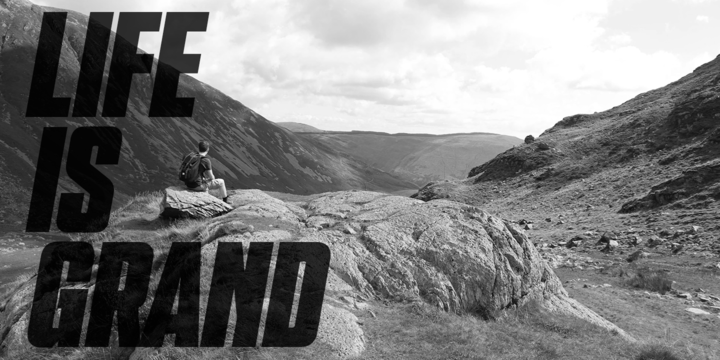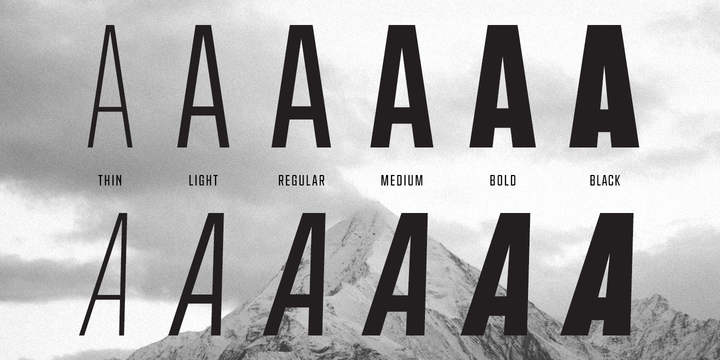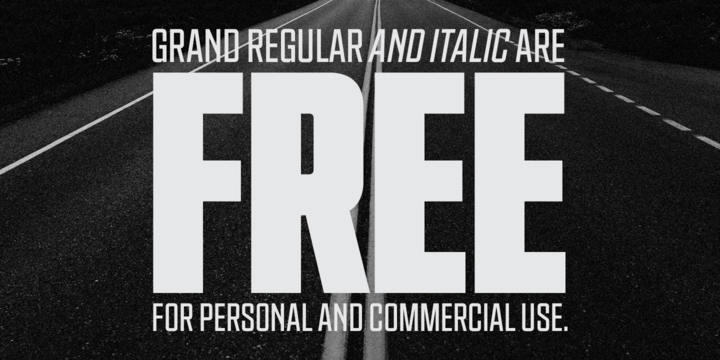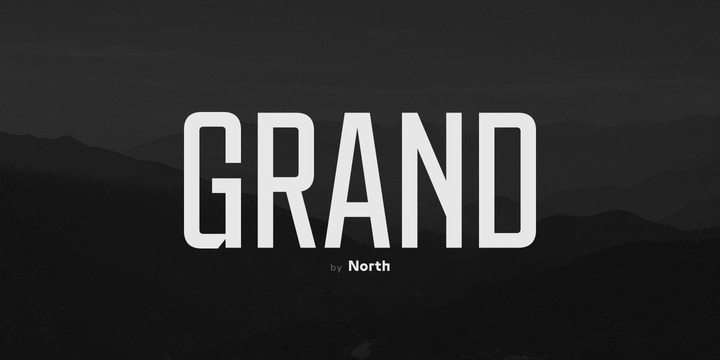
Grand Font Family
About this font family
Inspired by old school sign painting techniques, Grand is a display condensed sans serif that isn’t shy to put its foot down. Its verticality and bulky curves combined with its sharp angular connections between the bowls and stems give Grand a distinctive look and feel. It comes in 12 styles (6 weights and accompanying italics), and supports over 200 languages. Grand Regular and Grand Italic are both available for free (personal and commercial use).